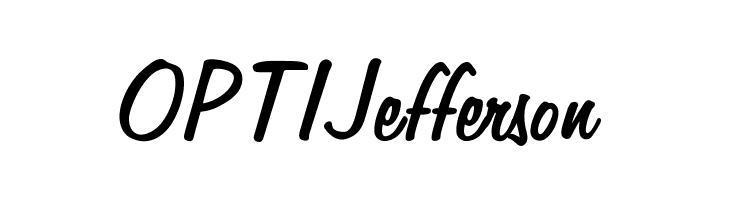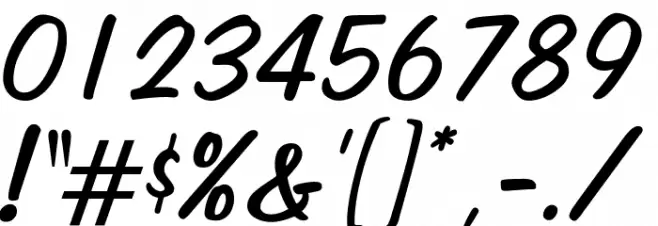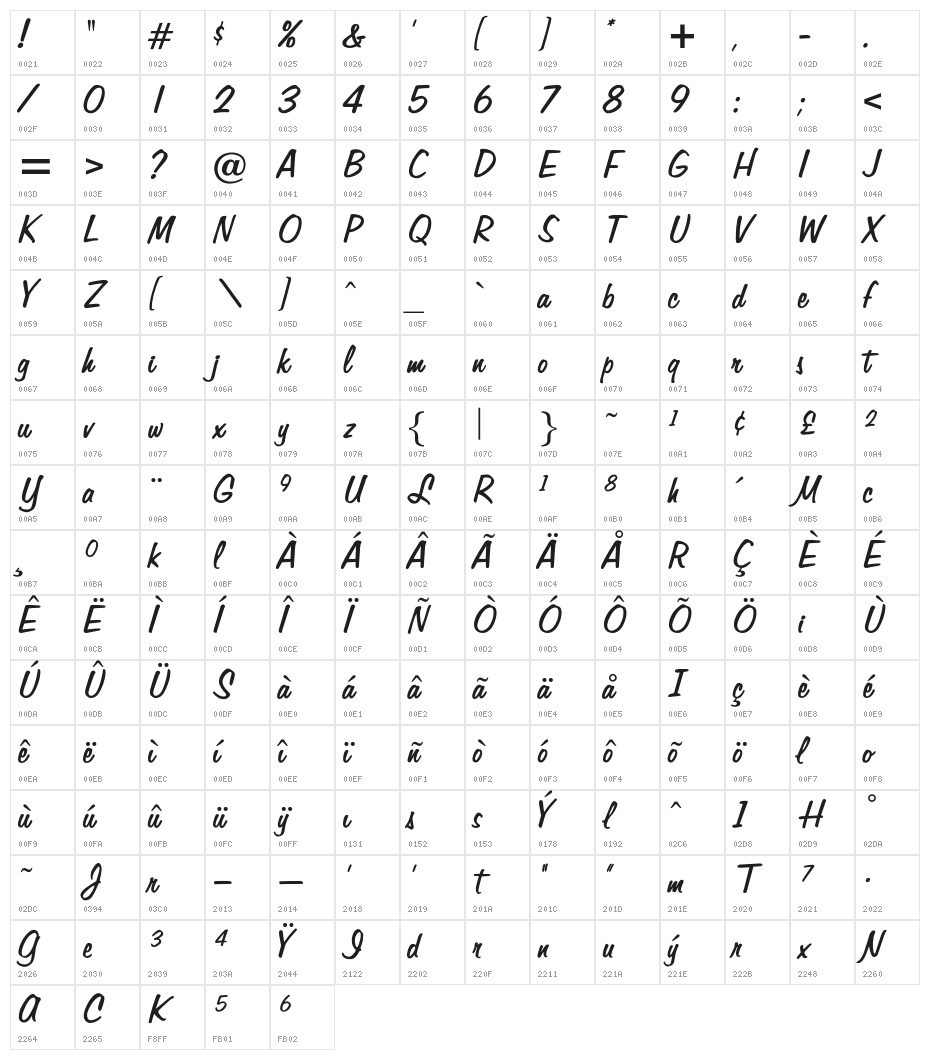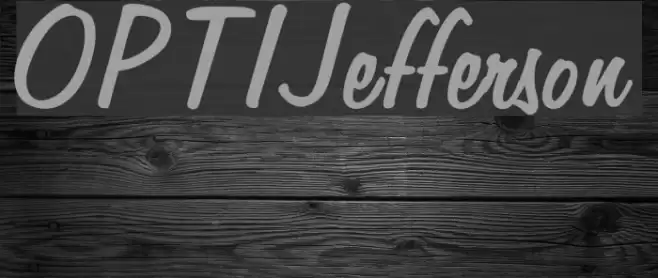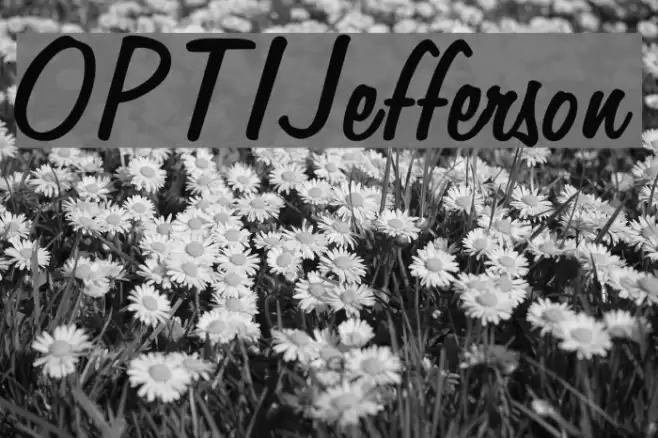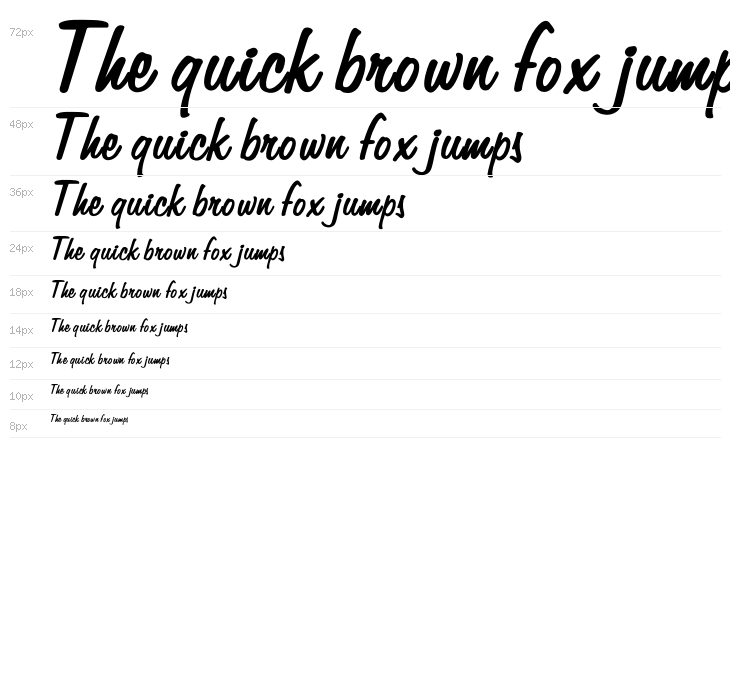
OPTIJefferson Font
OPTIJefferson Description
This font exhibits a dynamic and fluid handwritten style, characterized by its smooth, flowing curves and slightly slanted orientation. The uppercase letters maintain a consistent height, while the lowercase letters offer a playful variation in size and form, enhancing its casual and approachable feel. The numerals are bold and clear, ensuring readability, while the special characters are crafted with the same attention to detail, maintaining the font's cohesive appearance. The overall design is modern yet retains a classic handwritten charm, making it versatile for various applications.
| Proposed Projects | Ideal for personal branding, greeting cards, invitations, and creative projects that require a personal touch. |